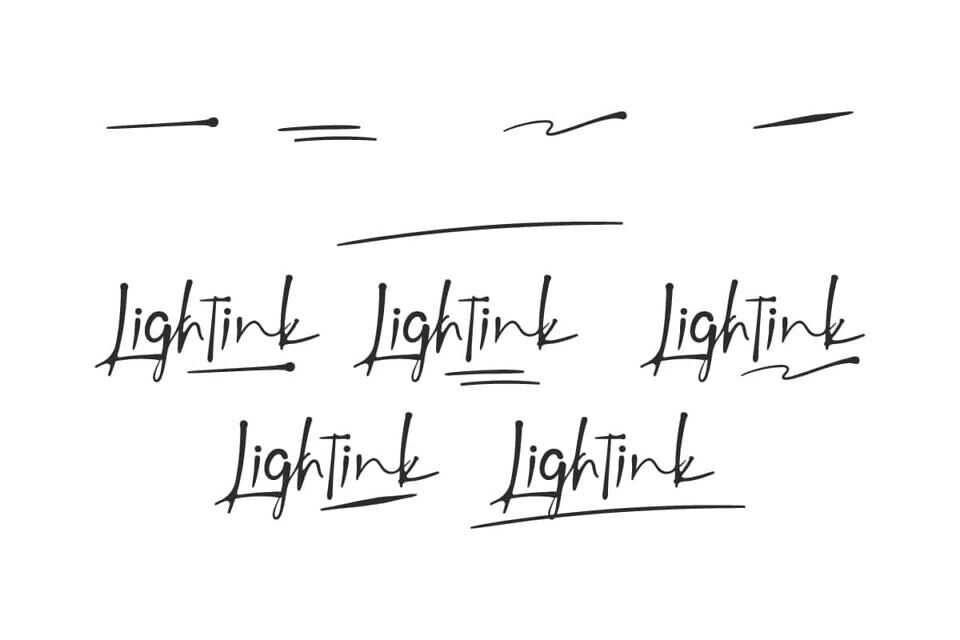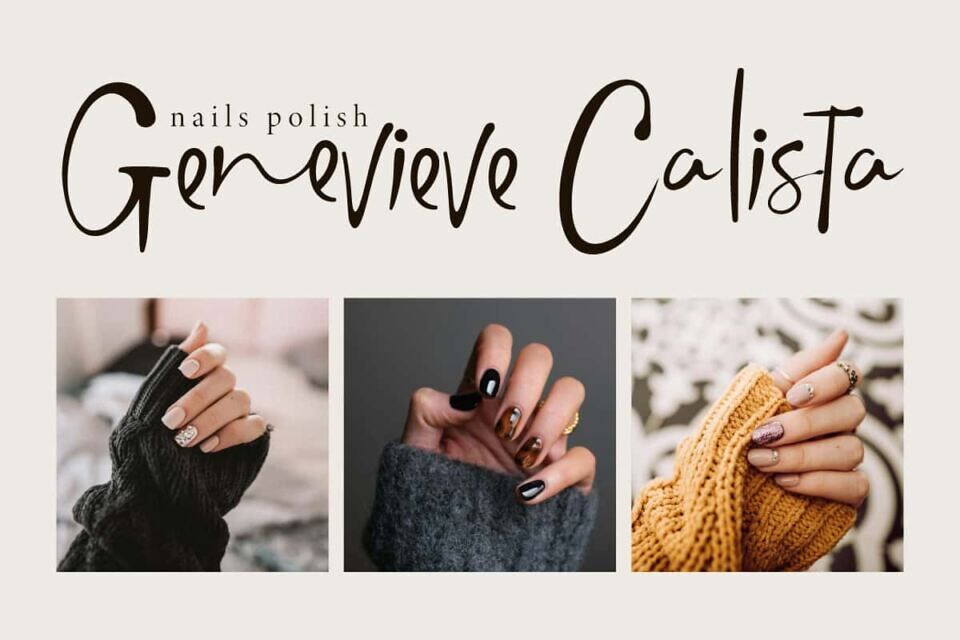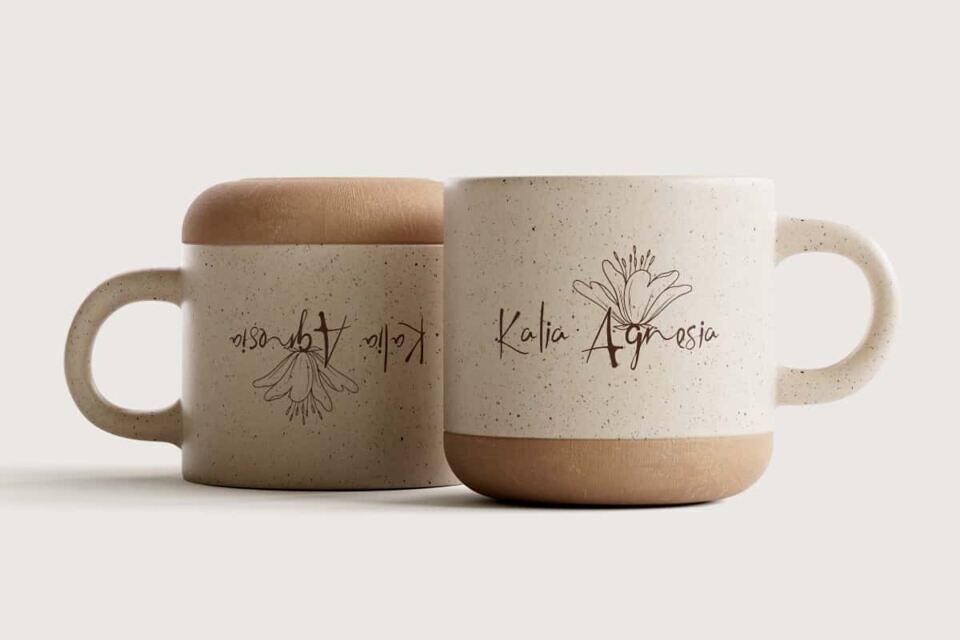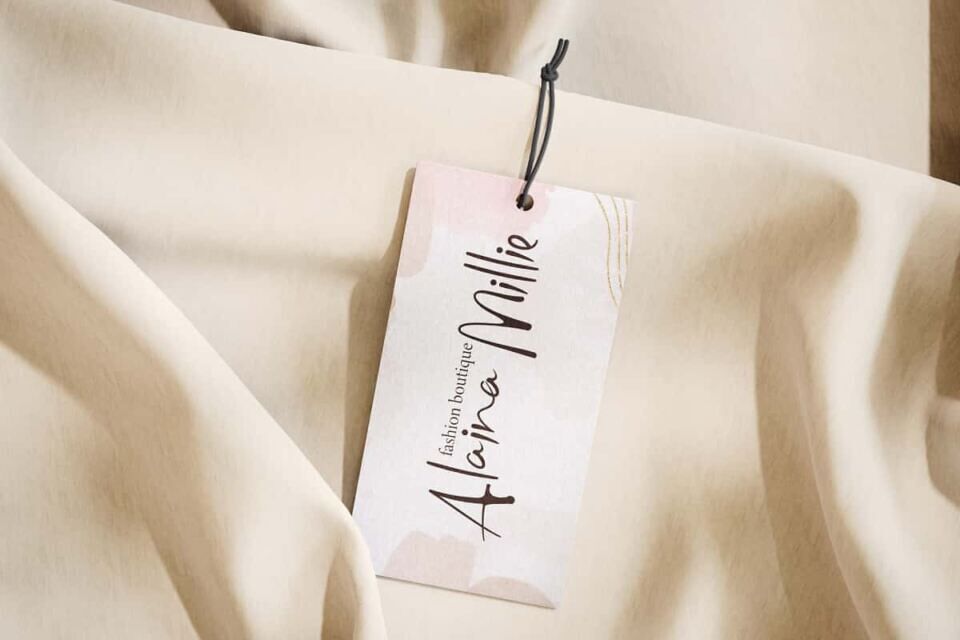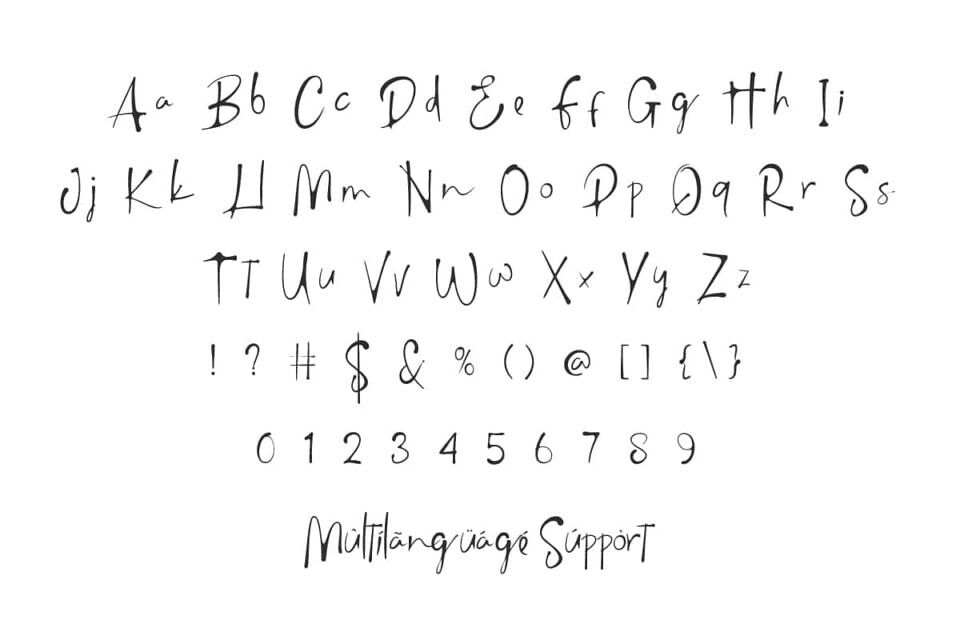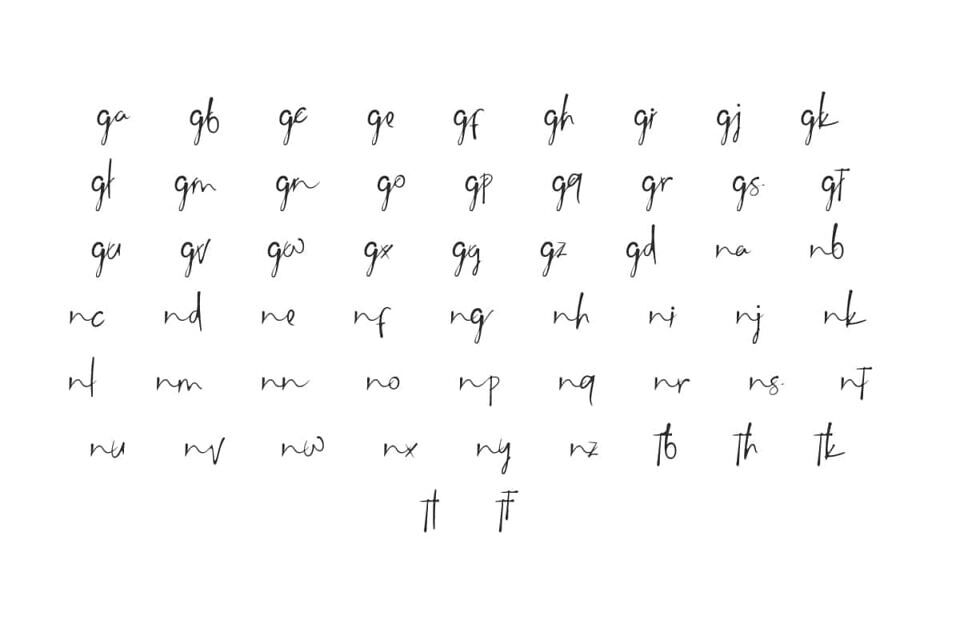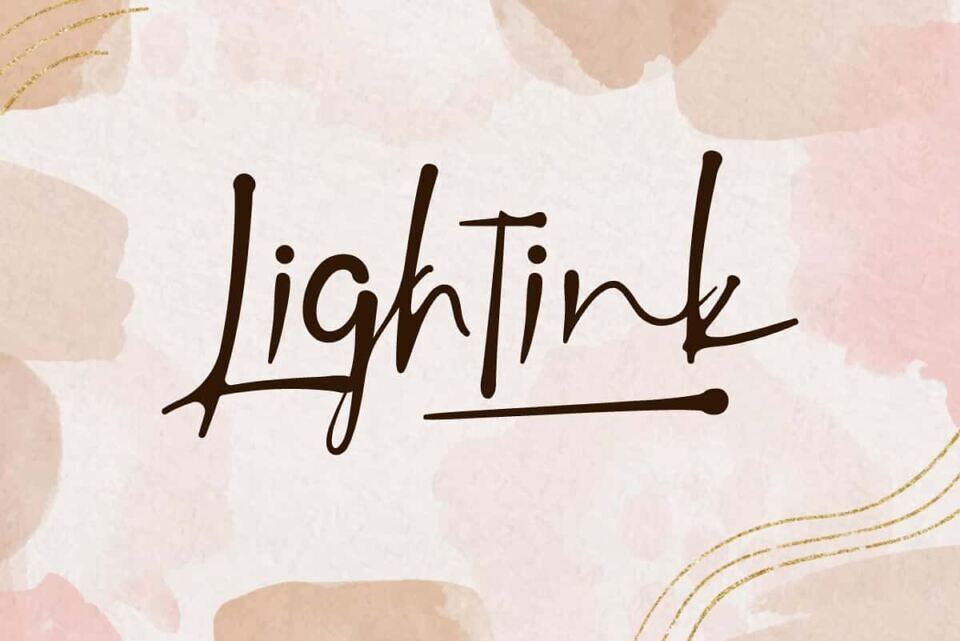
Lightink Font
Lightink Font is a brush graffiti font with a cool and warm modern touch. This font will be suitable for many industries, such as advertisement, author and writer, beauty product, event or festival, florist, handicraft, homeware, jewelry and accessories, printing, publishing, and more!
Lightink Font includes full set of Uppercase and Lowercase Basic Characters, Numerals, Punctuation, Symbol, Ligature, Alternate, and Swoosh character. Its natural curved lines give a personal impression, as if written directly by hand. Making it a perfect choice for many design, such as brand image, brochure, business card, cover, custom designs, invitation, label, packaging design, poster, quotes, screen printing, website, etc.